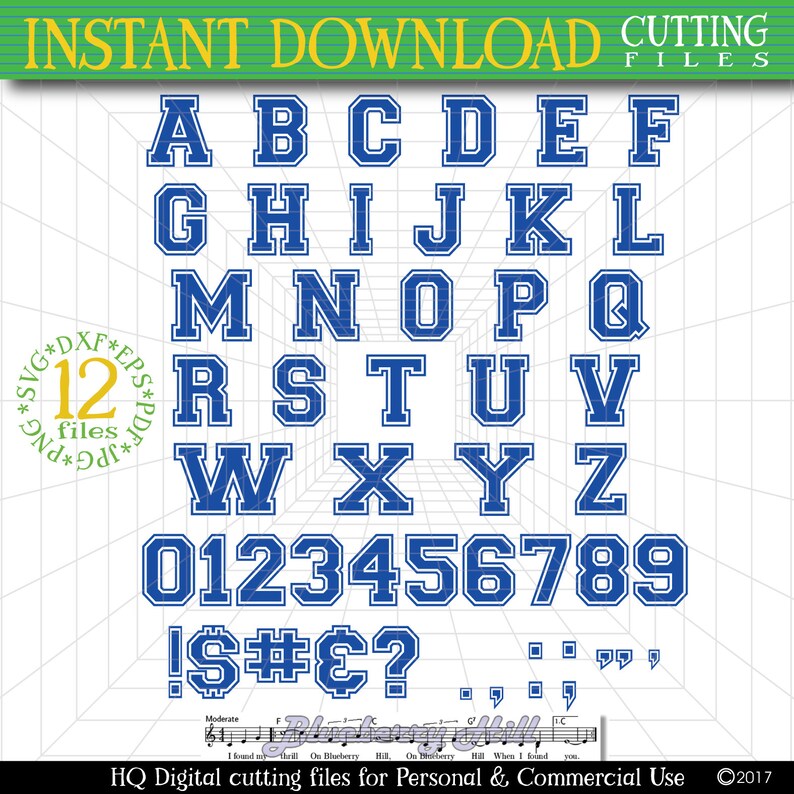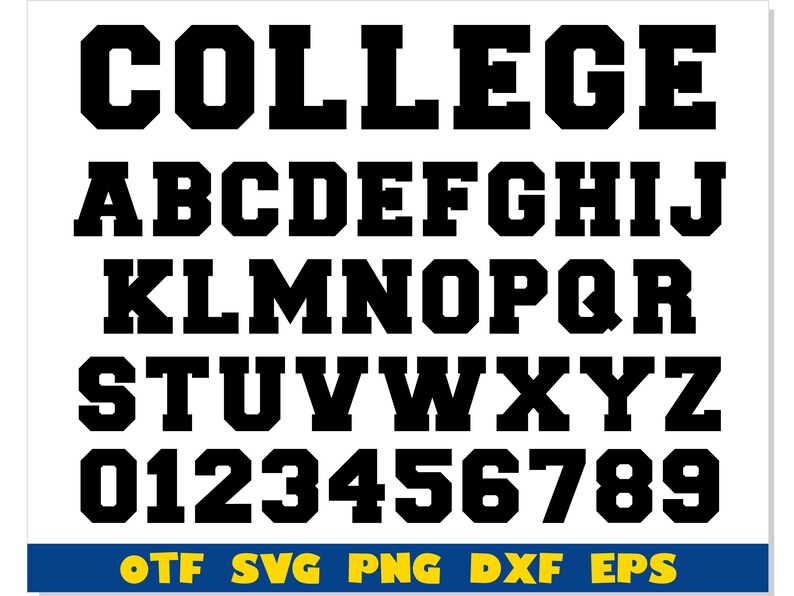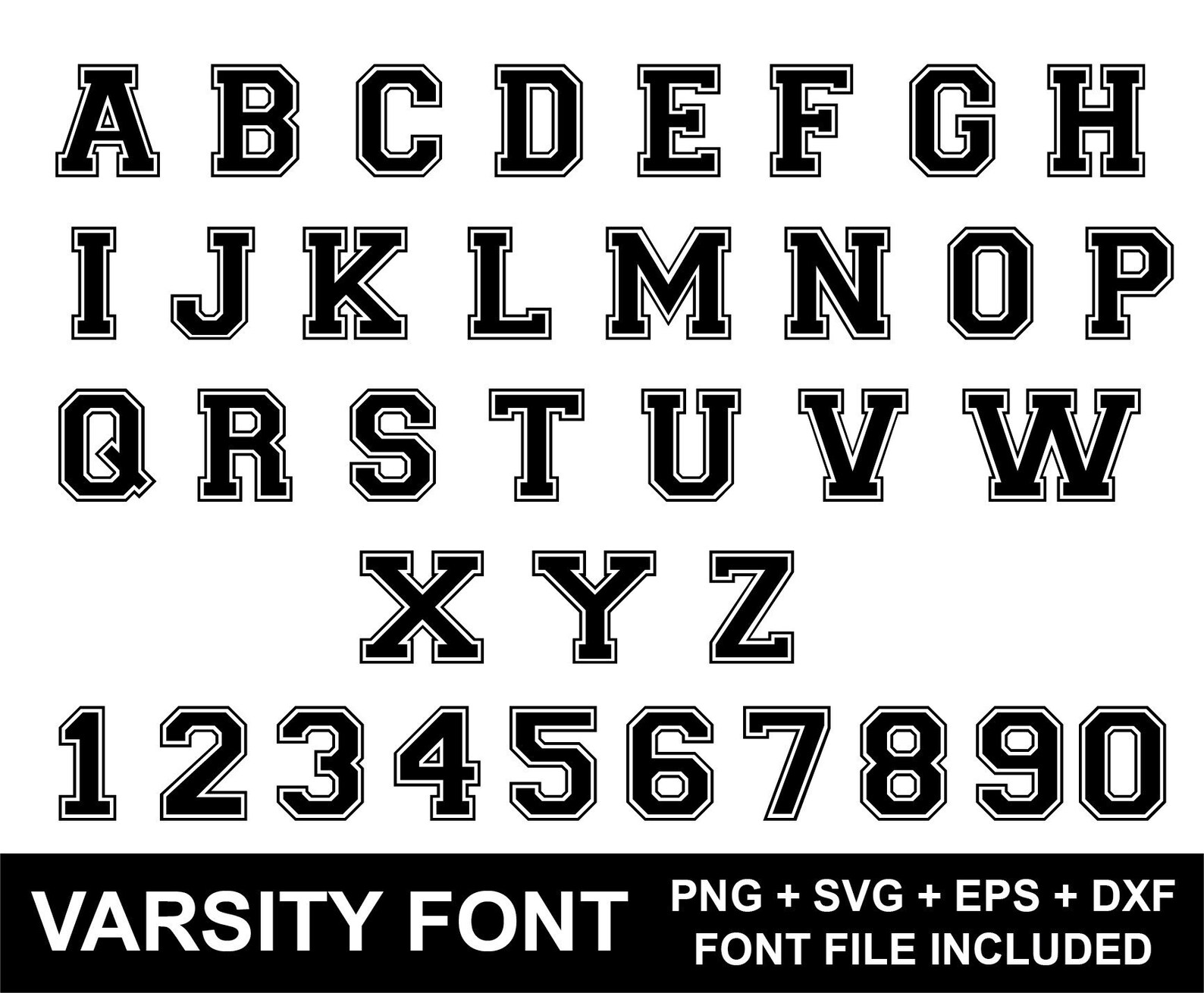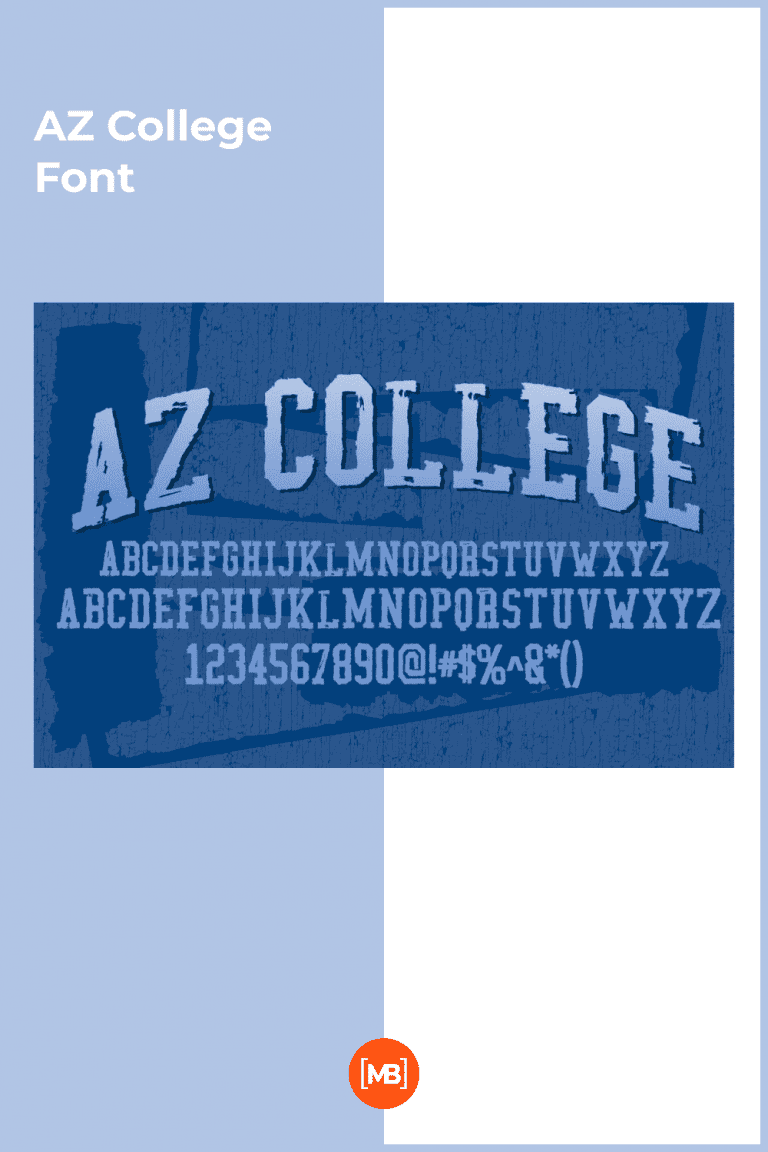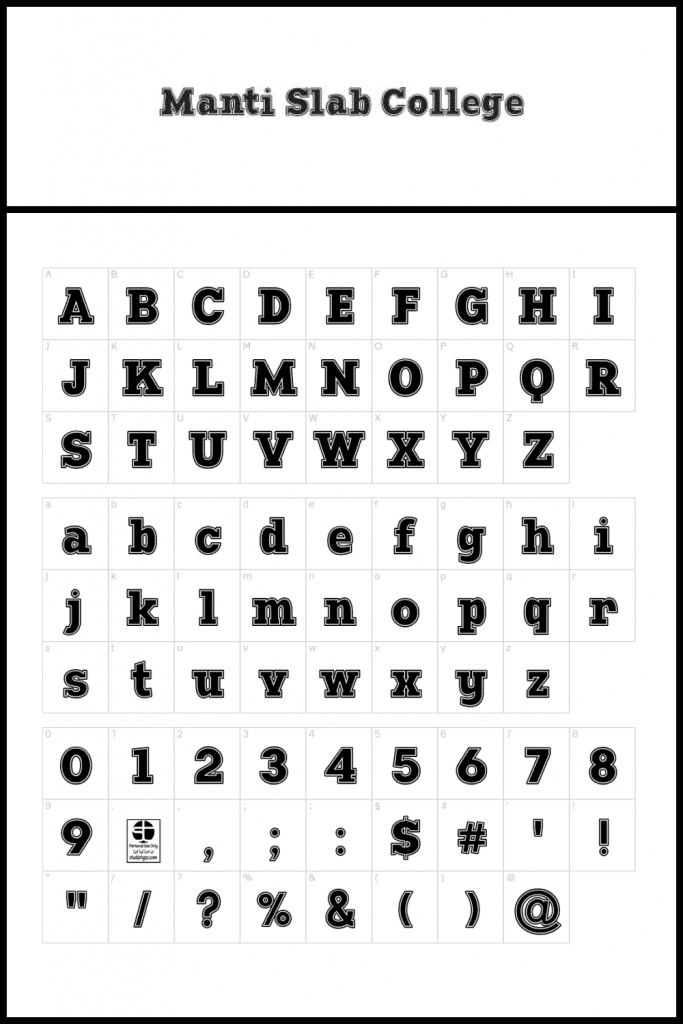
Classic College Font Vector Stock Vector Illustration of graphic
Alphabet college font template Royalty Free Vector Image Standard College Font You may want to include a college essay heading with a page. Many teachers require it because it’s a solid, legible, and universally available font. You can probably go with 1.5 or double. Tips on readability, style, and the perfect typography choices for essays, theses, and. If the journal specifies something,. Times new roman is, for better or worse, the. Standard College Font.
25 Free College Fonts to download Standard College Font Tips on readability, style, and the perfect typography choices for essays, theses, and. If the journal specifies something,. Times new roman is, for better or worse, the standard font for academic manuscripts. Many teachers require it because it’s a solid, legible, and universally available font. Use a font that's easy to read, like times, arial, calibri, cambria, etc. Use a. Standard College Font.
College Font Vector Type Download Free Vector Art, Stock Graphics Standard College Font You may want to include a college essay heading with a page. Avoid fonts like papyrus and curlz. Tips on readability, style, and the perfect typography choices for essays, theses, and. If the journal specifies something,. And use 12 pt font. Use a standard font such as times new roman or arial to avoid distracting the reader from your college. Standard College Font.